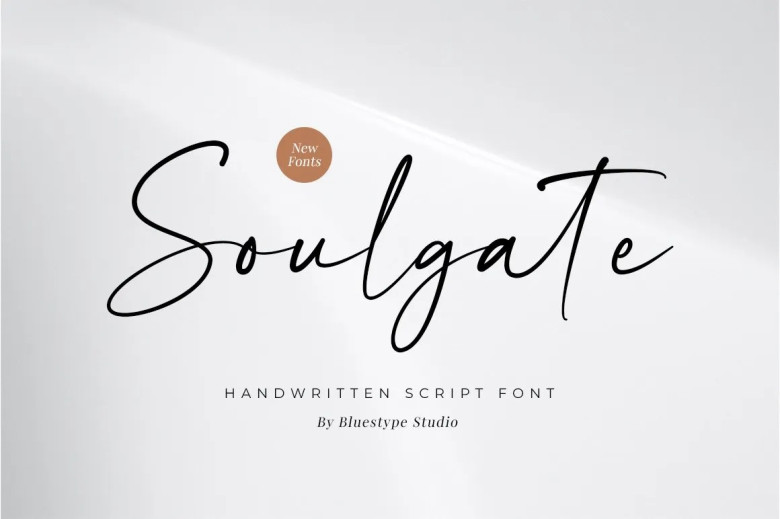
Soulgate is an alluring script handwritten font designed by nature itself and offers something for any style! Soulgate makes an excellent choice when used on branding materials like business cards, social media wedding invitations and social media wedding photos, T-shirt designs Logotype, magazines, fashion, magazines quotes signature invitations or watermarks.
Soulgate Handwritten Script Font